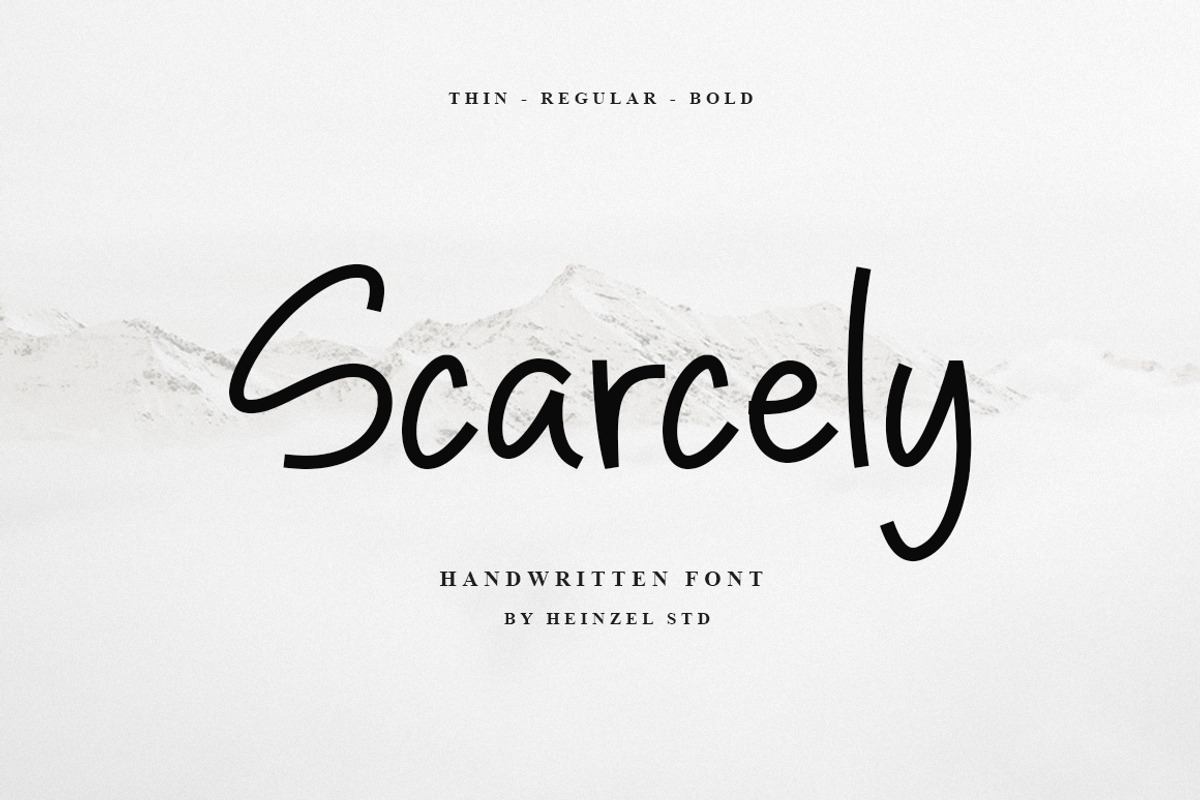
Scarcely Handwritten Font Free Download
Scarcely Handwritten Font Free Download is a delicate, minimalist script typeface that mimics the effortless flow of natural handwriting. With its thin strokes and casual rhythm, Scarcely is ideal for personal branding, quotes, Instagram posts, wedding stationery, lifestyle blogs, and minimalist logo designs.
This font brings a quiet elegance and sincerity to your text, making it perfect for projects that aim to feel intimate, stylish, and personal. Its simplicity ensures readability while adding a handcrafted, human touch to your visuals.